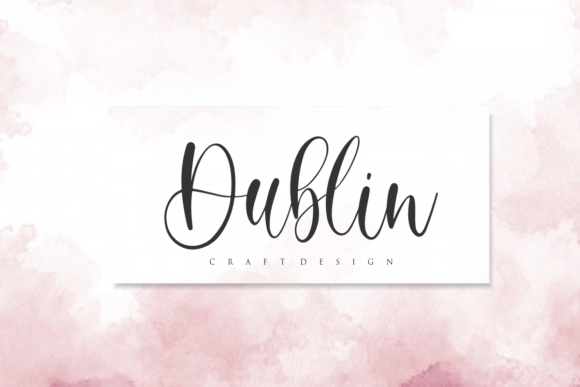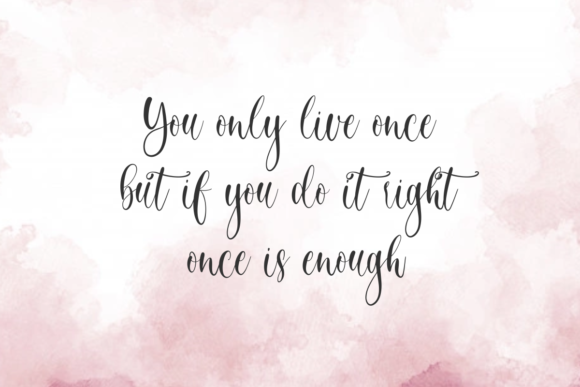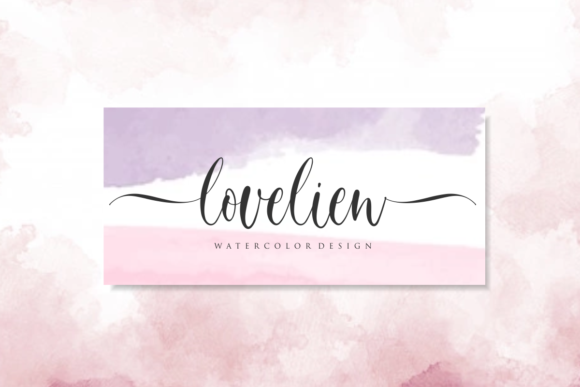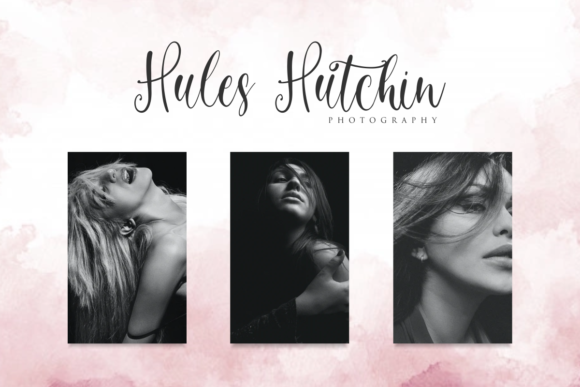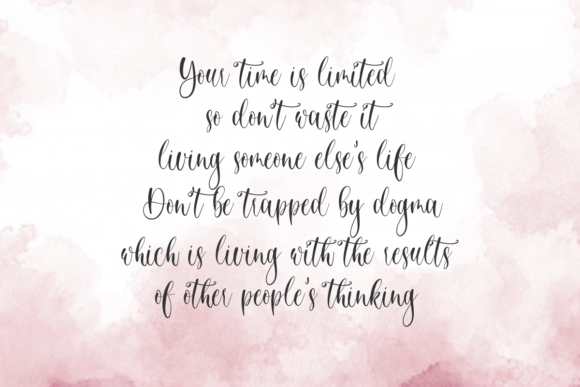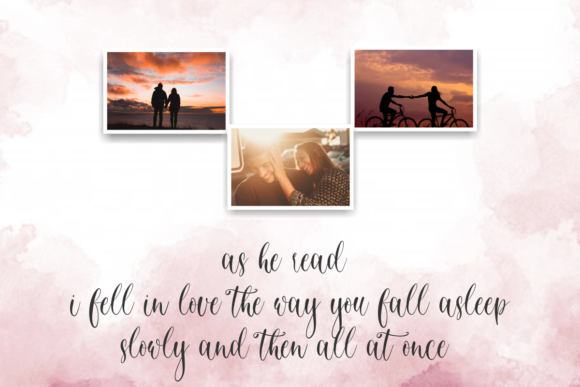
Celebrate Font: Elevate Your Designs with Elegant Handwritten Style
Are you looking for a font that adds a touch of elegance and sophistication to your designs? Look no further than Celebrate, a beautiful handwritten font that’s perfect for creating stunning visual content. In this article, we’ll dive into the world of Celebrate font, exploring its features, benefits, and uses, as well as provide tips and inspiration for designers and crafters.
Introducing Celebrate Font
Celebrate is an elegant handwritten font that’s designed to inspire your creativity. Its flowing style and beautiful glyphs make it perfect for a wide range of design projects, from invitations and greeting cards to branding and advertising materials. With Celebrate, you can add a personal touch to your designs and make them stand out from the crowd.
Key Features of Celebrate Font
- PUA Encoded: Celebrate font is PUA (Private Use Area) encoded, which means you can access all of the glyphs and swashes with ease. This makes it easy to use and customize the font to suit your design needs.
- Elegant Handwritten Style: Celebrate features a beautiful, flowing handwritten style that’s perfect for creating elegant and sophisticated designs.
- Wide Range of Glyphs: The font includes a wide range of glyphs, including swashes, ligatures, and alternates, which allow you to add variety and interest to your designs.
Benefits of Using Celebrate Font
So why choose Celebrate font for your design projects? Here are just a few benefits of using this beautiful font:
- Unique and Eye-Catching Designs: Celebrate font allows you to create unique and eye-catching designs that will stand out from the crowd.
- Elegant and Sophisticated Style: The font’s elegant handwritten style adds a touch of sophistication and elegance to any design.
- Easy to Use: Celebrate font is easy to use and customize, even for designers who are new to working with fonts.
Uses for Celebrate Font
Celebrate font is versatile and can be used for a wide range of design projects, including:
- Invitations and Greeting Cards: Create beautiful invitations and greeting cards with Celebrate font’s elegant handwritten style.
- Branding and Advertising: Use Celebrate font to add a touch of elegance and sophistication to your branding and advertising materials.
- Digital Designs: Celebrate font is perfect for digital designs, including social media graphics, blog posts, and website headers.
Tips for Using Celebrate Font
Here are a few tips for using Celebrate font to get the most out of this beautiful font:
- Experiment with Different Sizes and Colors: Try out different sizes and colors to see what works best for your design.
- Mix and Match with Other Fonts: Celebrate font pairs well with other fonts, so don’t be afraid to experiment with different combinations.
- Use the Swashes and Glyphs: Take advantage of the font’s swashes and glyphs to add variety and interest to your designs.
If you’re looking for inspiration for your design projects, here are a few ideas to get you started:
- Create a Beautiful Wedding Invitation: Use Celebrate font to create a stunning wedding invitation that sets the tone for the big day.
- Design a Gorgeous Greeting Card: Create a beautiful greeting card with Celebrate font’s elegant handwritten style.
- Develop a Unique Brand Identity: Use Celebrate font to create a unique brand identity that stands out from the crowd.
| Author | Fikryal Studio |
Celebrate font is a beautiful handwritten font that’s perfect for designers and crafters who want to add a touch of elegance and sophistication to their designs. With its flowing style, PUA encoding, and wide range of glyphs, Celebrate font is a versatile and easy-to-use font that’s perfect for a wide range of design projects. Whether you’re creating invitations, branding materials, or digital designs, Celebrate font is sure to inspire your creativity and help you create stunning visual content.